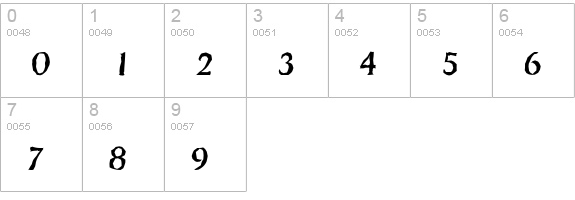
DragonAntique-Italic Font Details
DragonAntique-Italic is a distinctive, italic variant in the DragonAntique typeface family \xE2\x80\x94 well suited to design and typography projects.
Introducing DragonAntique-Italic font, a beautifully crafted typeface that exudes elegance and sophistication. With its unique italic style, this font is perfect for adding a touch of flair to your designs. DragonAntique-Italic font features intricate details and graceful curves that set it apart from the rest. What makes DragonAntique-Italic font even more special is that it is available for free download at FontsMarket.com. That's right, you can easily access this stunning font without any cost. Whether you're working on a project that requires a classic touch or simply want to elevate your designs, DragonAntique-Italic font is the ideal choice. Don't miss out on the opportunity to enhance your creative projects with the timeless beauty of DragonAntique-Italic font. Download it now and let your designs soar to new heights!